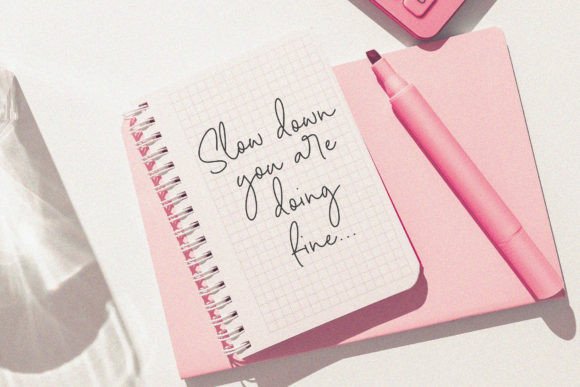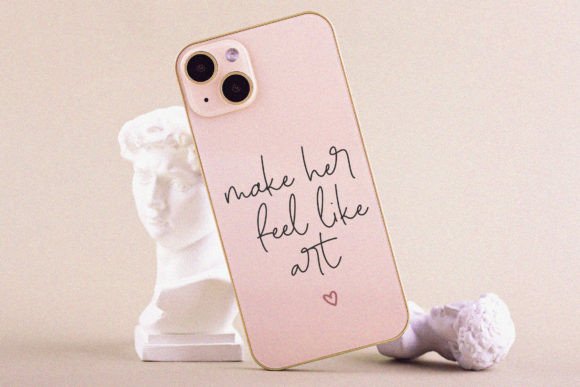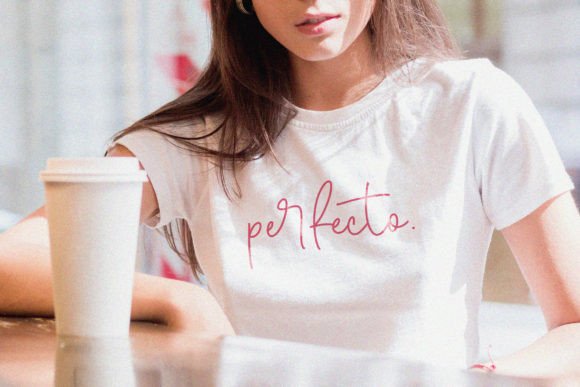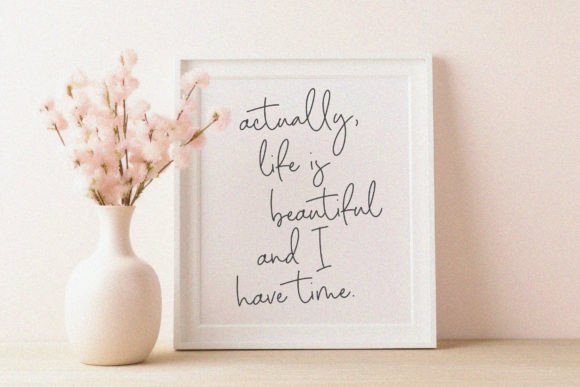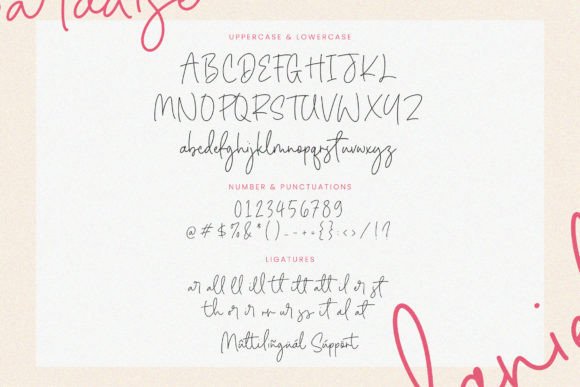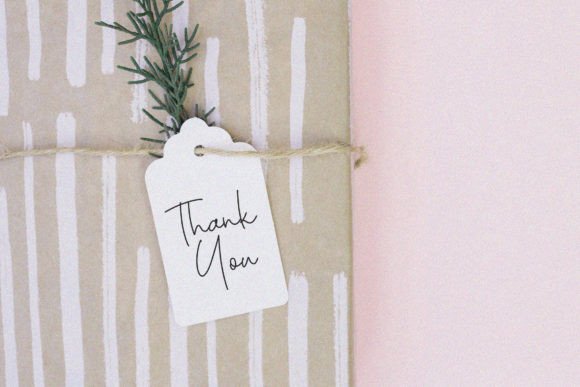
Discover the Elegance of Daniela Paradise Font: A Monoline Handwriting Marvel
In the world of typography, few fonts manage to strike a balance between simplicity and elegance as effortlessly as Daniela Paradise. This monoline handwriting font has captured the hearts of designers and crafters alike with its refined aesthetic and versatile charm. In this article, we’ll delve into the unique features of Daniela Paradise, exploring what makes it an ideal choice for a wide range of design projects.
The Essence of Monoline Design
At the core of Daniela Paradise’s appeal is its monoline design. Characterized by consistent line thickness, this style imparts a sense of cleanliness and modernity to any text. Unlike traditional handwriting fonts that often feature varying line widths, monoline fonts like Daniela Paradise offer a streamlined look that is both contemporary and sophisticated.
The monoline approach not only lends a sleek appearance to the font but also enhances its readability. This makes Daniela Paradise an excellent choice for designers seeking a font that combines style with functionality. Whether you’re working on a branding project, a website, or a printed material, this font’s clean lines ensure that your message is conveyed with clarity and elegance.
Smooth Curves and Refined Aesthetic
One of the standout features of Daniela Paradise is its smooth curves. The font’s design meticulously balances straight lines with gentle curves, creating a harmonious and visually appealing effect. This blend of geometric precision and fluidity gives Daniela Paradise a refined aesthetic that can elevate any design project.
The smooth curves also contribute to the font’s versatility. Daniela Paradise can seamlessly adapt to various design contexts, from minimalist and modern themes to more classic and timeless feels. This adaptability makes it a valuable asset for designers who need a font that can fit into different stylistic frameworks.
The Charm of Stylish Ligatures
Adding to the allure of Daniela Paradise are its stylish ligatures. These special character combinations replace standard letter pairs, creating a more cohesive and flowing text appearance. Ligatures not only enhance the visual appeal of the font but also contribute to a more natural and handwritten feel.
The inclusion of ligatures in Daniela Paradise injects a touch of sophistication and charm into any text. This feature is particularly beneficial for designers aiming to create a distinctive and memorable brand identity or for crafters looking to add a personal touch to their projects. The ligatures ensure that the text doesn’t just convey information but also tells a story through its elegant connections.
Versatility and Understated Beauty
Daniela Paradise’s true strength lies in its versatility. This font is not limited to a specific design genre or application. Its understated beauty and refined aesthetic make it suitable for a myriad of projects, including:
- Branding and Logos: Create a lasting impression with a clean and sophisticated brand name or logo.
- Web Design: Enhance your website’s typography with a modern and readable font.
- Print Materials: Elevate your business cards, brochures, and posters with a touch of elegance.
- Crafting and DIY Projects: Add a personal and stylish touch to your handmade crafts and DIY endeavors.
Daniela Paradise’s ability to blend into various design contexts without overpowering them is a testament to its timeless appeal. Its understated beauty ensures that the focus remains on the content while subtly enhancing the overall visual experience.
Daniela Paradise is more than just a font; it’s a design companion that brings simplicity, elegance, and versatility to the table. Its monoline design, smooth curves, and stylish ligatures make it an exceptional choice for designers and crafters seeking to add a refined touch to their projects. Whether you’re aiming for a modern edge or a classic feel, Daniela Paradise offers the perfect blend of style and functionality. Discover the elegance of Daniela Paradise Font and let it transform your designs with its understated beauty and sophisticated charm.